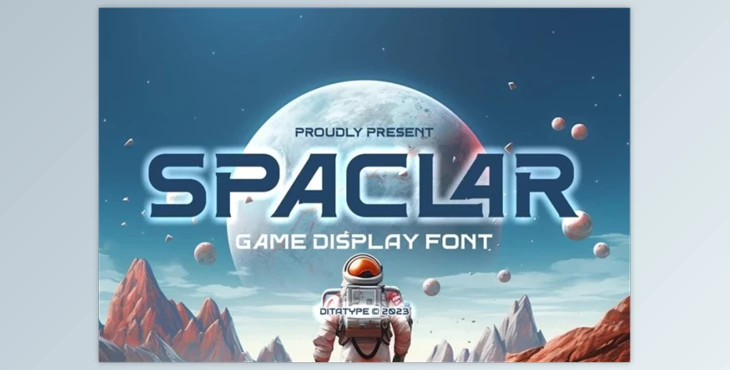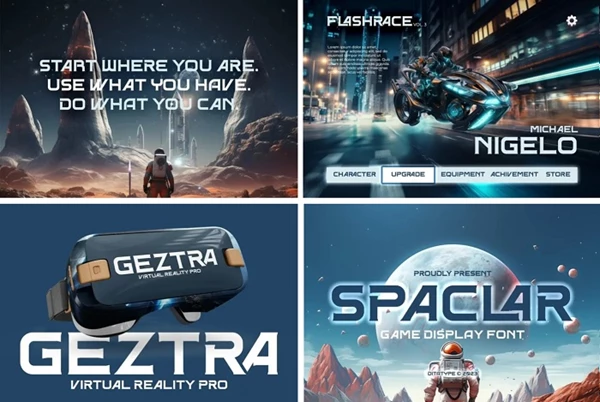
Spaclar Font: Spaclar The font is a modern, robust, bold display font designed and created with Din Studio. The font features uppercase letters in uniform proportions. This ensures an uncluttered and balanced visual experience. Every character has the same shape and size, creating a unified and harmonious design. This design style creates a sense of order and accuracy, highlighting the game's strategic aspect. The geometric shapes that have sharp corners of Spaclar give a contemporary and futuristic feel to the typeface. The sleek lines and well-defined angles give off a sense of elegance and class, hinting at the latest technology and sci-fi style. This distinct feature provides an element of intrigue to the eye, making this an excellent design for games with a futuristic feel. You can utilize it in larger text to make it easier to read. Explore the various features available here.